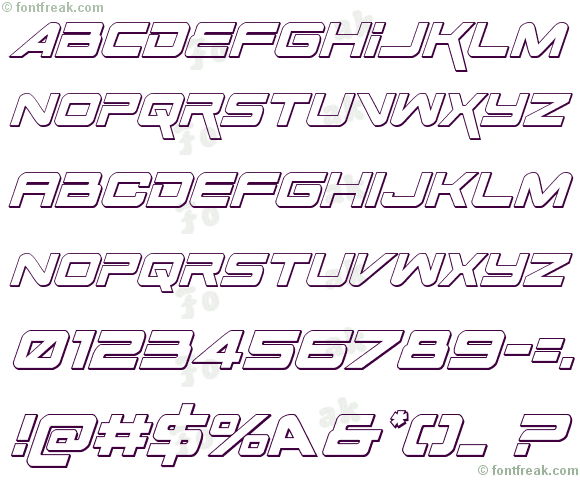
Space Ranger 3D Italic
About Space Ranger 3D Italic
The Space Ranger 3D Italic font, created by Daniel Zadorozny, belongs to the decorative category, characterized by its dynamic and futuristic design. This font features a unique 3D effect that adds depth and dimension, making it visually striking. The stroke weight is consistent, providing a stable appearance, while the italic style gives it a sense of movement. The contrast between the bold outlines and the lighter inner details enhances its visibility, making it stand out in various applications. The spacing is well-balanced, allowing for easy readability while maintaining an engaging aesthetic.
Space Ranger 3D Italic is an excellent choice for a variety of specific use cases. It can be effectively utilized in movie posters, where its bold and adventurous style can evoke a sense of excitement. Additionally, this font works well for gaming graphics, providing an eye-catching title treatment that aligns with the sci-fi theme. It is also suitable for merchandise designs, such as T-shirts or hats, aimed at fans of space and adventure genres. Furthermore, graphic designers can leverage this font for event branding, particularly in themed parties or conventions that celebrate future technologies or space exploration.
What sets Space Ranger 3D Italic apart is its ability to combine artistic flair with practical usability. Its distinctive design not only captures attention but also communicates themes of exploration and imagination, making it an exceptional addition to any creative toolkit.